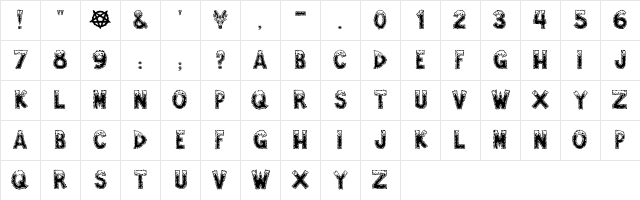
Amped For Evil Regular Free Font
Amped For Evil Regular
Copyright: AMPED FOR EVIL is a *FREE* font inspired by Wollongong, Australia Punk/Hardcore band DYSTEMPA. Capital letters and basic punctuation are provided, along with a couple special dingbats (* and #) questions/comments:
Design Context for Amped For Evil
Amped For Evil is a composed and adaptable typeface that performs quietly and consistently across a wide range of design contexts.